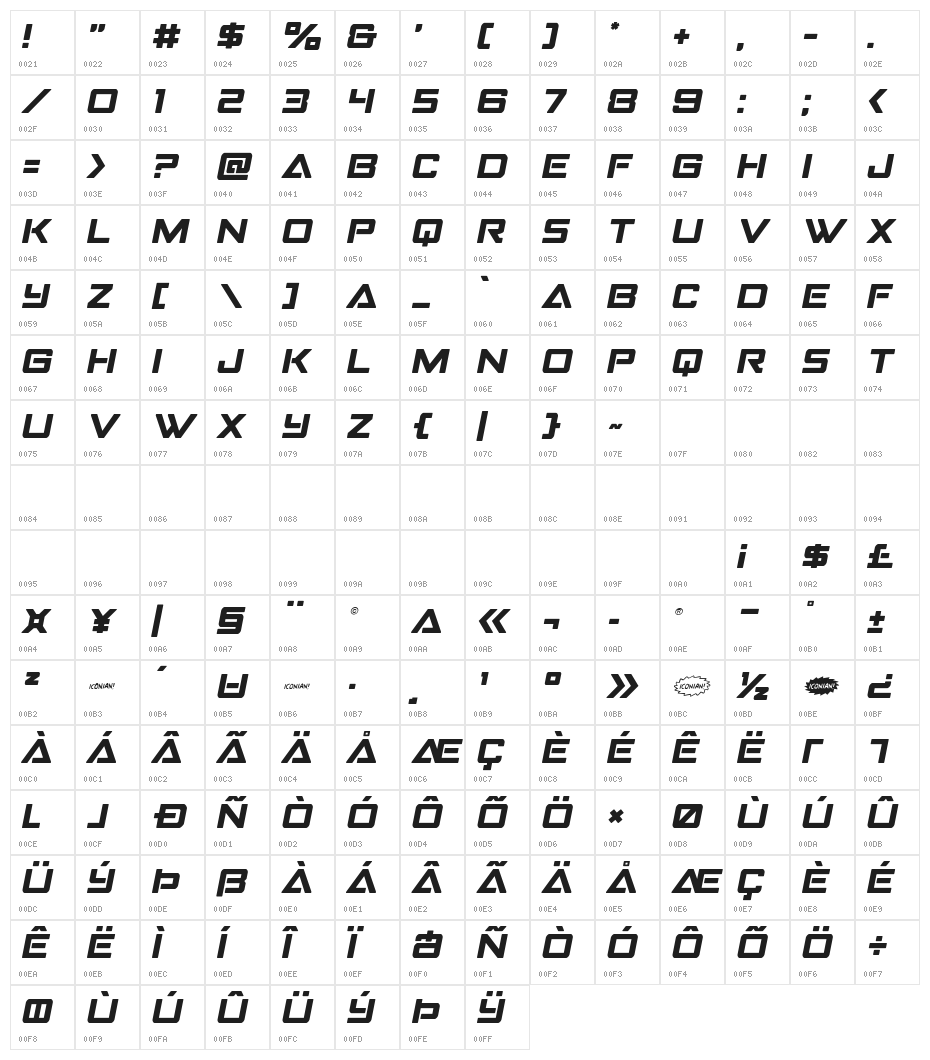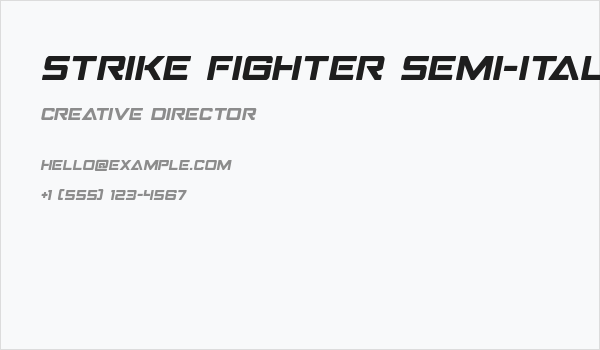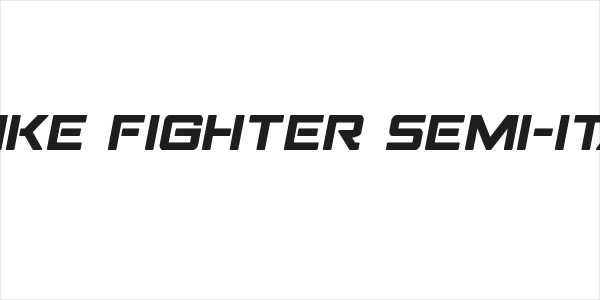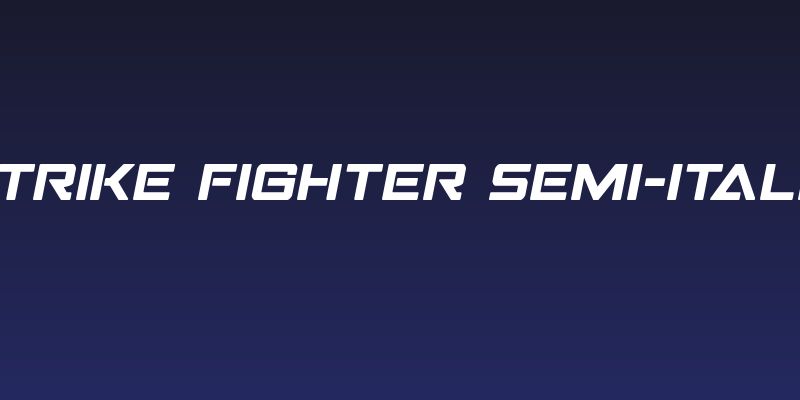
Strike Fighter Semi-Italic Font
Strike Fighter Semi-Italic Description
This font features a bold, angular design with a futuristic and dynamic feel. The characters are slightly italicized, adding a sense of motion and speed. The uppercase letters are prominent and commanding, while the lowercase letters maintain the same angular style, ensuring consistency across the typeface. The numbers are clear and bold, matching the overall aesthetic. Special characters are designed with the same attention to detail, making them fit seamlessly with the rest of the font. The overall look is modern and sleek, suitable for projects that require a strong and impactful visual presence.
| Proposed Projects | Ideal for use in technology branding, video game titles, sports team logos, and automotive advertising. |